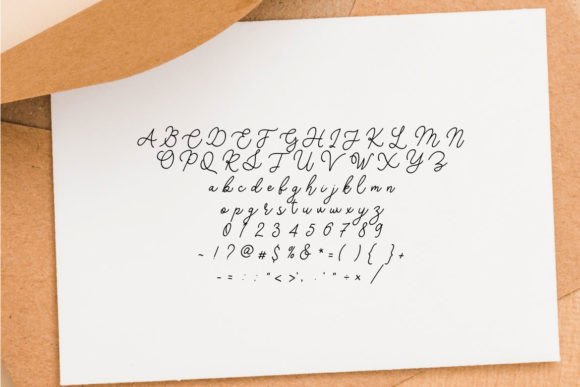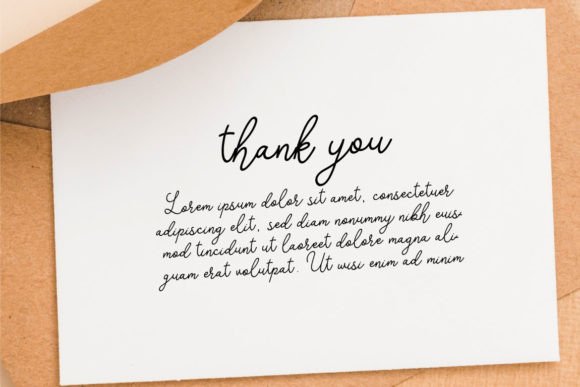
Rainy Font
About Rainy Font
Introducing Rainy, a sweet and delicate handwritten font that exudes daintiness and joyfulness. With its charming and romantic style, this font is an ideal choice for writing wedding invitations, cards, or any design that calls for a personalized and romantic touch.
What sets Rainy apart is its delicate and sweet demeanor. The handwritten strokes add a personal and intimate feel, making it perfect for projects that aim to capture the essence of romance and joy. Picture Rainy gracing wedding invitations, where it brings a touch of elegance and whimsy to the celebration of love.
The sweet and delicate nature of Rainy makes it a versatile font for various romantic occasions. Whether you’re creating cards, love notes, or any design that conveys a sense of warmth and personal connection, Rainy becomes the perfect choice to infuse a romantic and personalized touch.
Imagine Rainy becoming the centerpiece of your wedding stationery, creating a cohesive and charming visual identity for your special day. Envision it in romantic cards, where its dainty characters convey sentiments of love and affection. Its versatility allows it to adapt seamlessly to different design contexts, bringing a touch of romance wherever it is used.
In conclusion, Rainy is more than just a font; it’s a sweet and delicate companion ready to enhance your romantic designs. Download it today and experience how it transforms wedding invitations, cards, and more into expressions of love and joy. Make Rainy an essential part of your font collection, and let it be the key to creating romantic and personalized visuals that capture the heart!